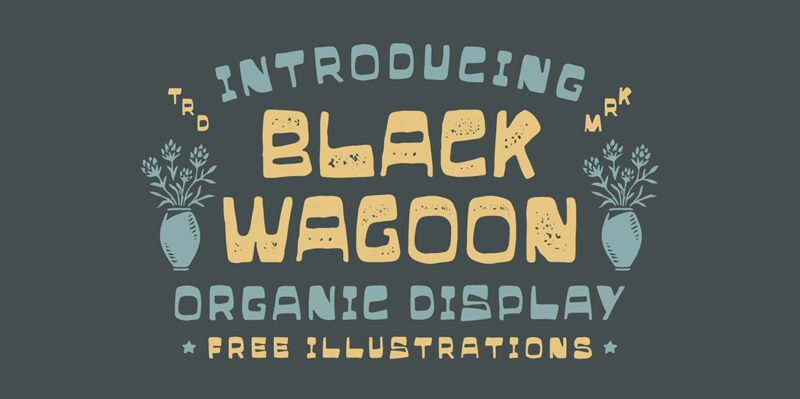
Introducing Black Wagoon, an organic display font by Letterhend Studio. With its bold weight and semi-expanded width, this cartoon-inspired typeface is perfect for a multitude of creative projects. From children's books and animated films to playful logos and quirky signage, Black Wagoon brings a whimsical touch to any design. Let your imagination run wild with this expressive font that breathes life into every character it creates. Get ready to infuse your projects with the charm of Black Wagoon!